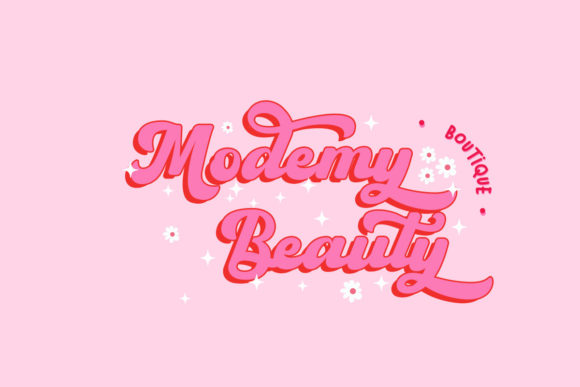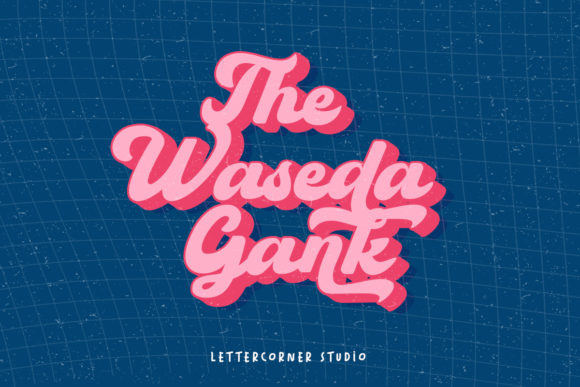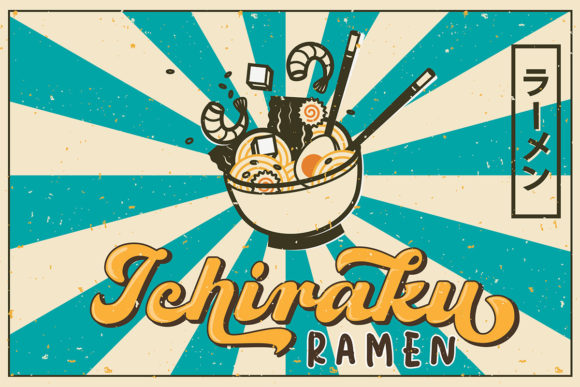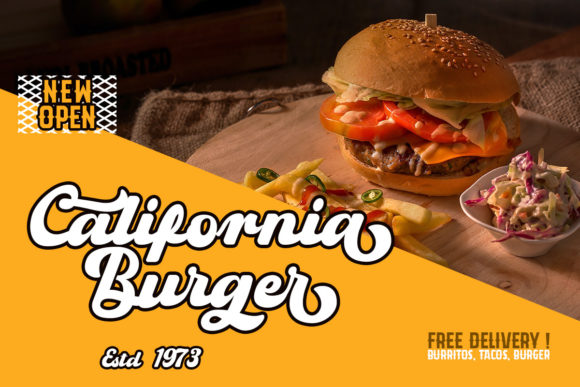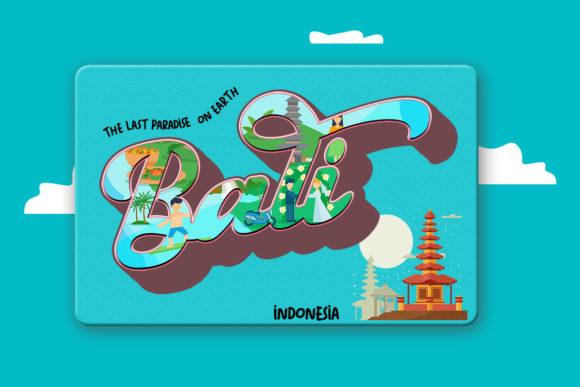
Introduction to Phila Font
Have you ever found yourself stuck on a design project, desperately searching for the perfect font to bring your creative vision to life? I know I have. As designers, we’re always on the lookout for that special something that will elevate our work and make it truly stand out. That’s where the Phila Font comes in – a stunning retro script font that’s sure to become your new go-to design resource.
With its unique blend of vintage charm and modern flair, the Phila Font is the perfect addition to any high-quality design project. Whether you’re working on a logo, brochure, or social media graphics, this font is sure to add a touch of sophistication and elegance to your work. And the best part? It’s available for free download, making it an accessible and valuable resource for designers of all levels.
What sets the Phila Font apart is its PUA encoding, which allows for seamless access to all glyphs and swashes – perfect for creating intricate, custom designs with a transparent background. Whether you’re a seasoned pro or just starting out, the Phila Font is an essential tool for any creative project that demands a high level of visual impact.
Key Features of Phila Font
- High-quality, professional font design perfect for creative projects, available as a free download for designers.
- Comes with a transparent background, making it ideal for use in graphic design, logos, and other visual elements.
- Available in a range of sizes, from 12 to 72 points, allowing designers to customize the font to suit their needs.
- Features a high resolution of 300 DPI, making it suitable for use in high-quality print materials, such as business cards and brochures.
- Designed to be highly legible, making it perfect for use in body text, headings, and titles in a variety of creative projects.
Honest Review: Phila Font
As a designer, I’ve had the chance to work with various fonts and design resources, but the Phila Font stands out in terms of its unique features and high quality. One of the standout features is its transparent background, making it perfect for creative projects that require a clean and minimalist look. ✨
The Phila Font is a free download, which is a definite plus for designers on a budget. The font is available in various styles and weights, offering a lot of flexibility for different design needs. I’ve used it for various projects, from logos to brochures, and it always delivers a professional and modern look.
- High-quality design with a transparent background
- Various styles and weights available for flexibility
- May not be suitable for projects requiring a bold or dramatic font style
- Some users may find the font too minimalist for certain design needs
Overall, I’m impressed with the Phila Font and would highly recommend it to fellow designers. Its unique features and high quality make it a valuable addition to any design resource collection. ⚠️ While it may have some limitations, I believe its benefits far outweigh its drawbacks.
Phila Font
Design Resource Guide
The Phila Font is a versatile and high-quality design resource perfect for creative projects. With a transparent background, this font offers endless possibilities for customization and creativity.
Tips for Getting the Most Out of Phila Font
To get the most out of the Phila Font, try the following tips:
- Combine the Phila Font with other design elements, such as images and graphics, to create a visually appealing design.
- Use the transparent background to create a seamless design that integrates with other elements.
The Phila Font is perfect for a variety of creative projects, including:
- Web design and digital marketing materials